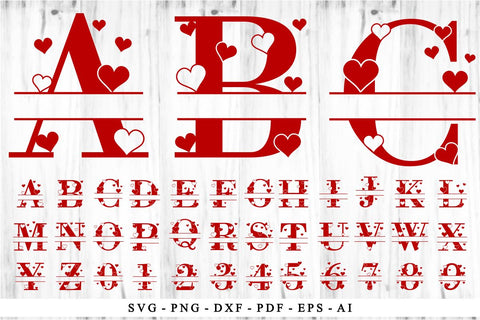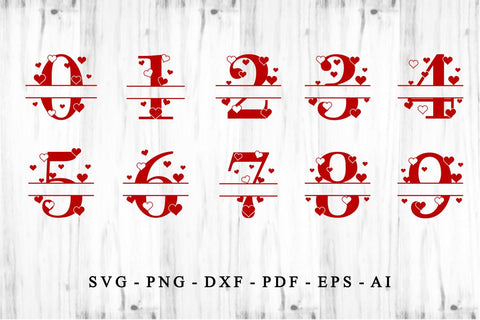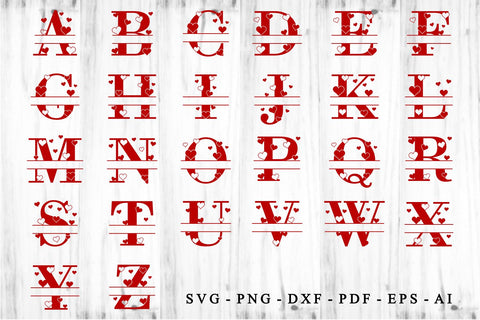
Valentines Day Love Heart Split Monogram Letters, Valentine Split Font SVG, Valentines Alphabet Letter PNG, Valentine's Day Sublimation
Love Heart Split Monogram Letters, Valentine Split Font SVG, Valentines Day Monogram Letter, Valentine's Day Sublimation